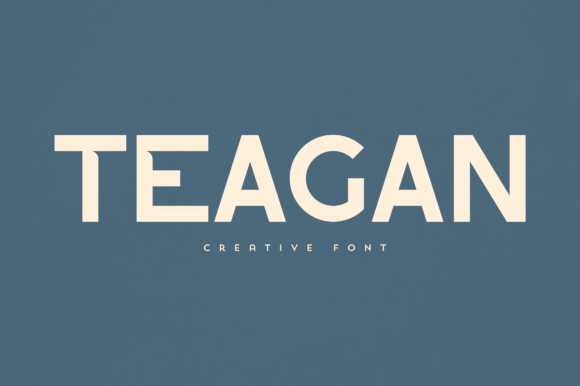
Journey into the captivating world of typography with our exquisite Teagan Font, a sans serif masterpiece crafted to elevate your designs to new heights. This elegant and versatile font is the perfect companion for creating truly unique and captivating typography that will leave a lasting impression on your audience.
Immerse yourself in the beauty of Teagan's meticulously crafted letterforms, designed to enchant every logo, branding, headline, or plain text. With its clean lines, graceful curves, and subtle details, Teagan exudes an air of sophistication and timeless charm. Whether you're designing a striking logo for your business, creating stylish home-ware designs, or crafting eye-catching product packaging, Teagan is the font that will bring your creative vision to life.
Let Teagan's versatility unleash your creativity. Its wide range of weights and styles allows you to effortlessly adapt it to any project, from delicate magazine headers to bold and impactful posters. Whether you seek a minimalist aesthetic or an opulent and ornate design, Teagan has the power to transform your words into works of art.
Step into a world where typography meets emotion. Teagan's captivating character will add a touch of magic to your designs, evoking feelings of joy, elegance, and sophistication. Experience the transformative power of typography as Teagan elevates your designs, leaving your audience spellbound.